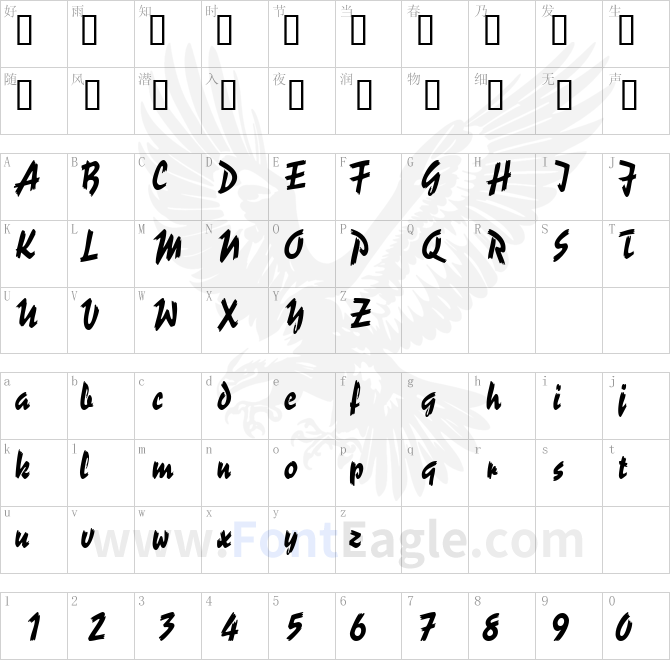
SpiffyScriptSSK is a great font, widely used in graphic design, single-page menu design, poster design and other fields, and is deeply loved by designers.SpiffyScriptSSK download.